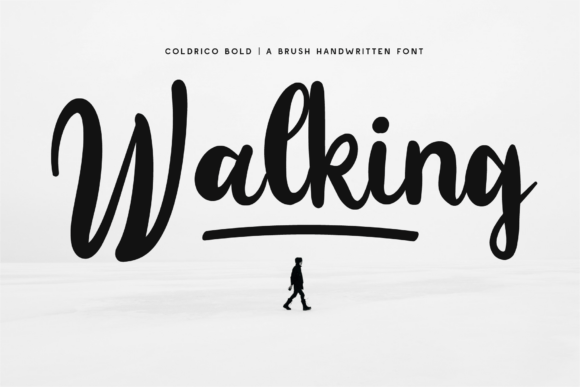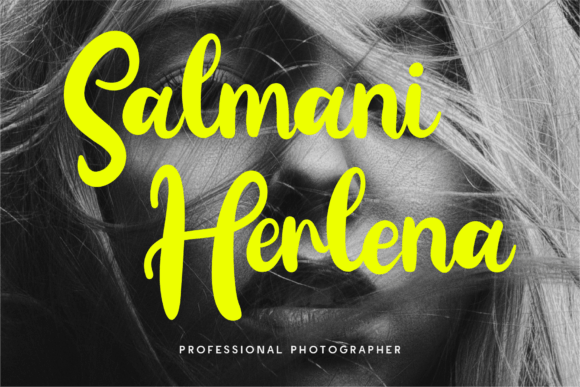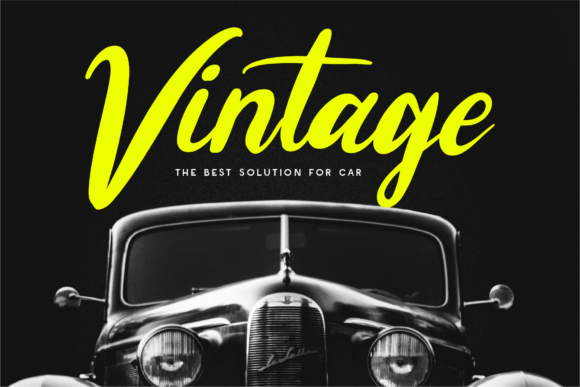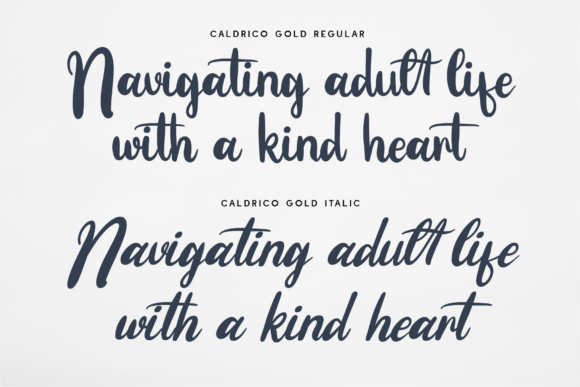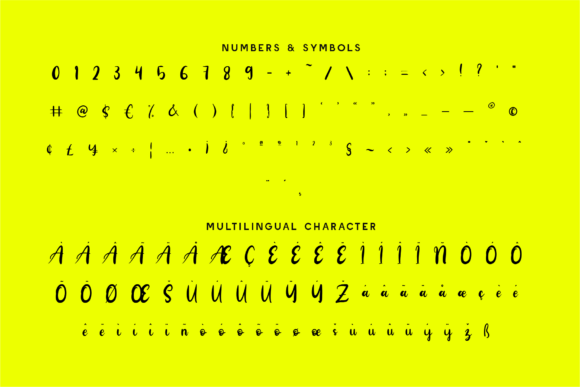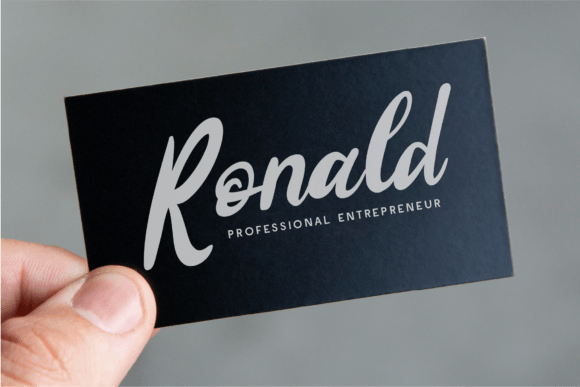
Unlocking Creativity with Caldrico Bold Font
As a designer, have you ever found yourself stuck in a creative rut, searching for the perfect font to bring your vision to life? You know that feeling when you stumble upon a font that’s just right, and suddenly, your entire design takes on a new level of energy and excitement? That’s exactly what happens when you discover the Caldrico Bold Font – a high-impact brush handwritten font that’s guaranteed to elevate your design projects.
Crafted with precision and care, Caldrico Bold Font is a game-changer for designers who crave high-quality, unique typography that stands out from the crowd. With its bold strokes, fluid movement, and expressive letterforms, this font is the perfect addition to any creative project, from branding and streetwear to advertising and social media designs.
- Unique characteristics include a bold, modern design and a wide range of stylistic alternates for added creativity.
Honest Review: Caldrico Bold Font
As a designer, I’m always on the lookout for high-quality design resources to elevate my creative projects. Recently, I stumbled upon the Caldrico Bold Font, and I’m excited to share my honest review.
What works well: ✨ The Caldrico Bold Font is incredibly versatile and can be used for a wide range of design applications, from logos to typography-based designs. The font’s clean and modern aesthetic makes it perfect for creative projects that require a touch of sophistication.
- Excellent for logos and typography-based designs
Limitations: ⚠️ While the Caldrico Bold Font is an excellent addition to any design library, it may not be suitable for projects that require a more rustic or vintage feel. Additionally, the font’s bold weight may not be ideal for body text.
Overall impression: I’m thoroughly impressed with the Caldrico Bold Font. Its modern aesthetic and high-quality design make it an excellent choice for any creative project. With its free download option and transparent background, it’s a design resource that’s hard to pass up.
For the best results, use Caldrico Bold Font in combination with other high-quality fonts and graphics. Experiment with different font sizes and colors to create a unique and eye-catching design. This font is perfect for creative projects such as infographics, posters, and social media graphics.
Caldrico Bold Font is commonly used in a variety of design projects, including:
- Posters
- Business presentations